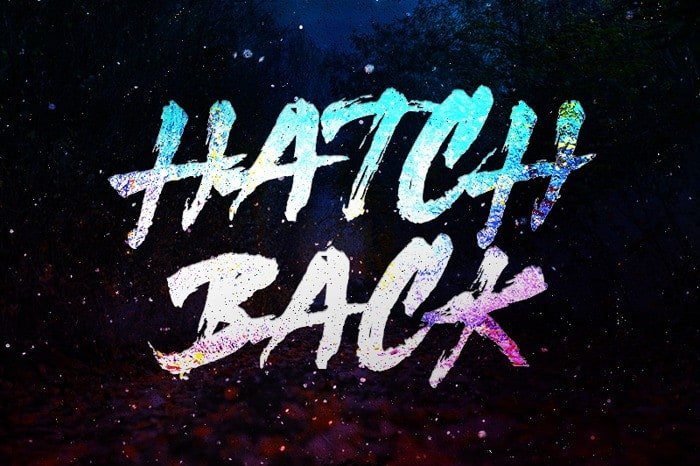
Hatchback Brush Font
Hatchback Brush Font is handwritten brush stylish script typeface with hand-drawn sketch that perfect for your amazing project. This Typeface is designed and shared by Motokiwo.
It’s a casual, fun brush font, created by using a brush pen. Clean and a little bit quirky, this font is the perfect fit for all of your logos, branding, social media, and crafty DIY projects.